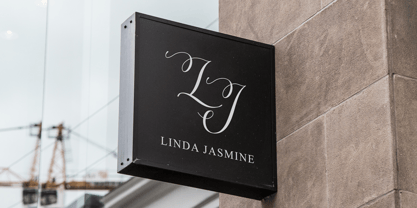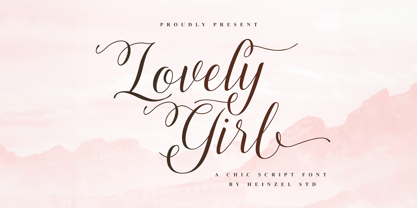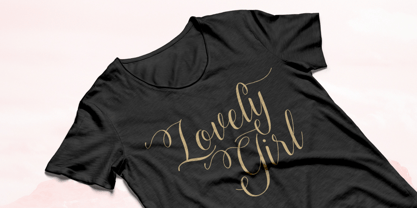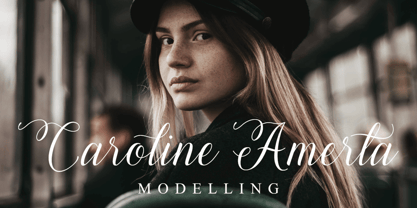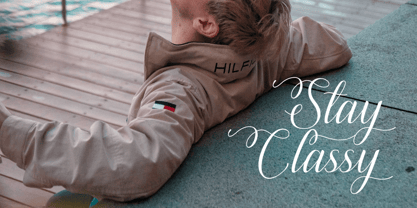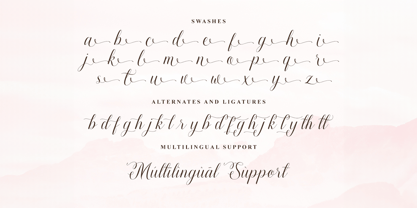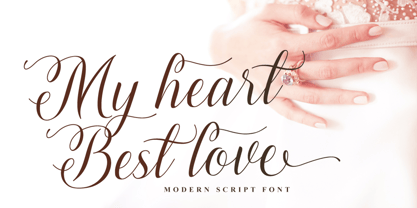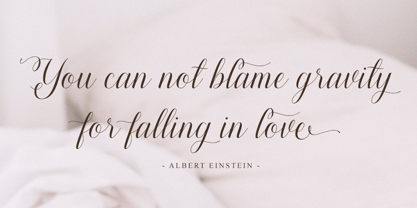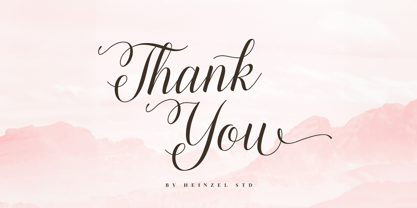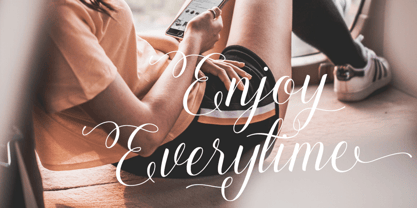
Lovely Girl
by Heinzel Std
The Lovely Girl Font Family was designed by Nofi Sofyan Hadi and published by Heinzel Std. Lovely Girl contains 1 styles.
Lovely Girl feels equally charming and elegant. It looks beautiful on wedding invitations, thank you cards, quotes, greeting cards, logos, business cards, and every other design which needs a handwritten touch.
This font is PUA encoded which means you can access all of the glyphs and swashes with ease! It features a varying baseline, smooth lines, gorgeous glyphs and stunning alternates.
Lovely Girl also includes a full set of uppercase and lowercase letters, multilingual symbols, numerals, and punctuation. The font has a smooth wet ink texture, so would be perfect for all types of printing techniques you can do embroidery, laser cut, gold foil, etc.
Designers: Nofi Sofyan Hadi